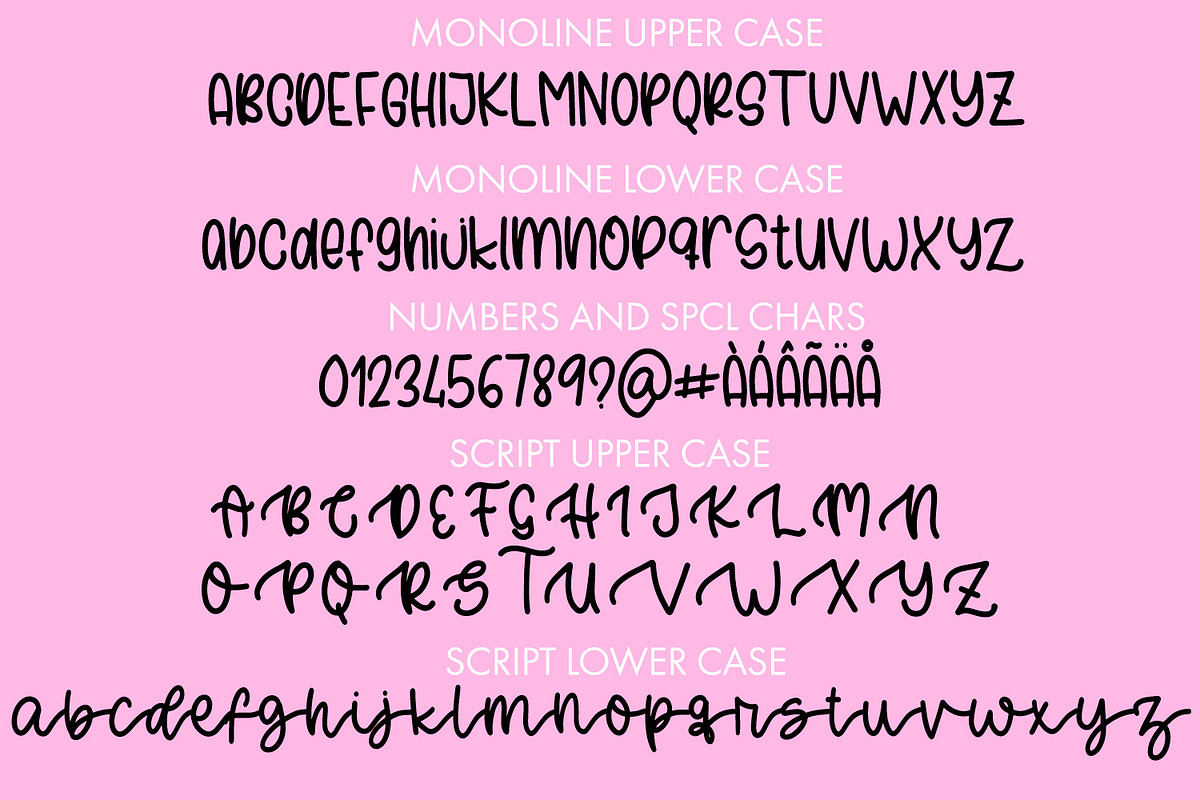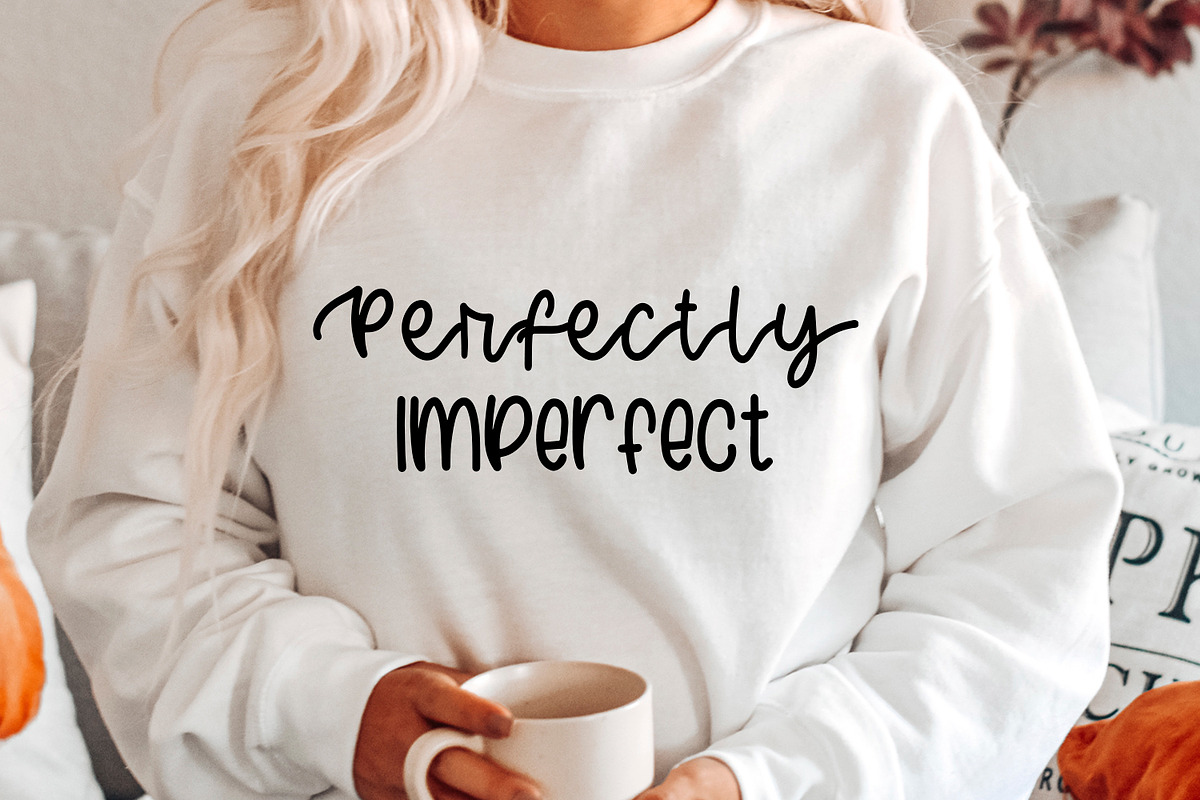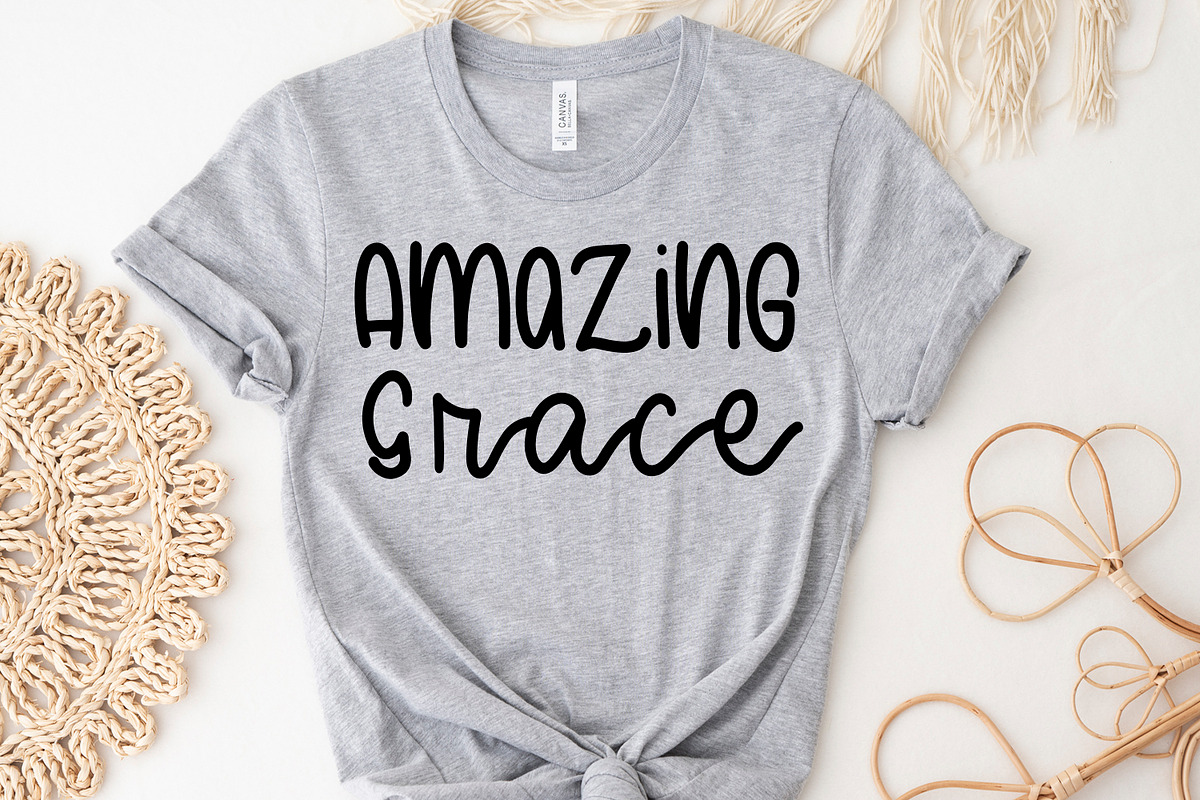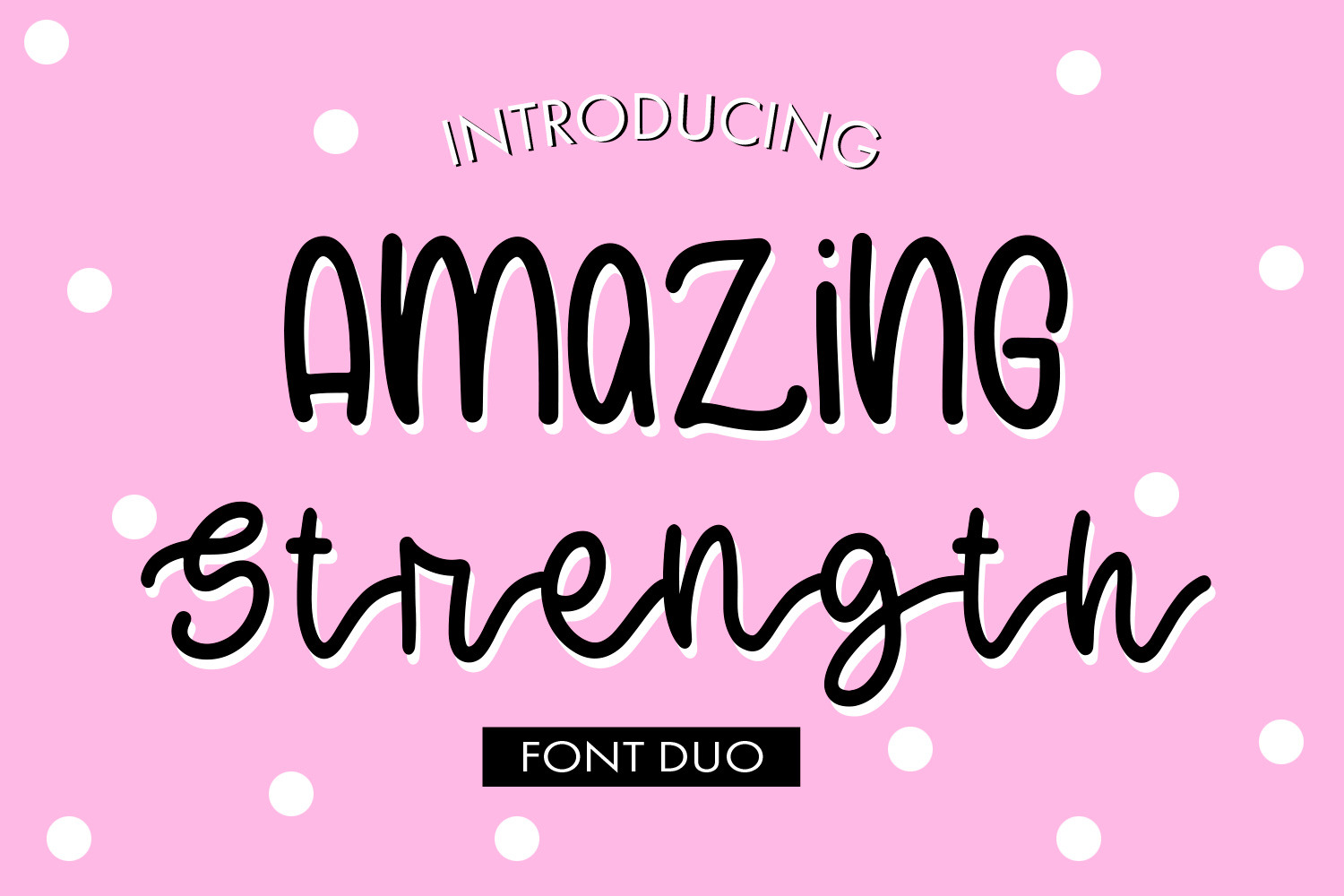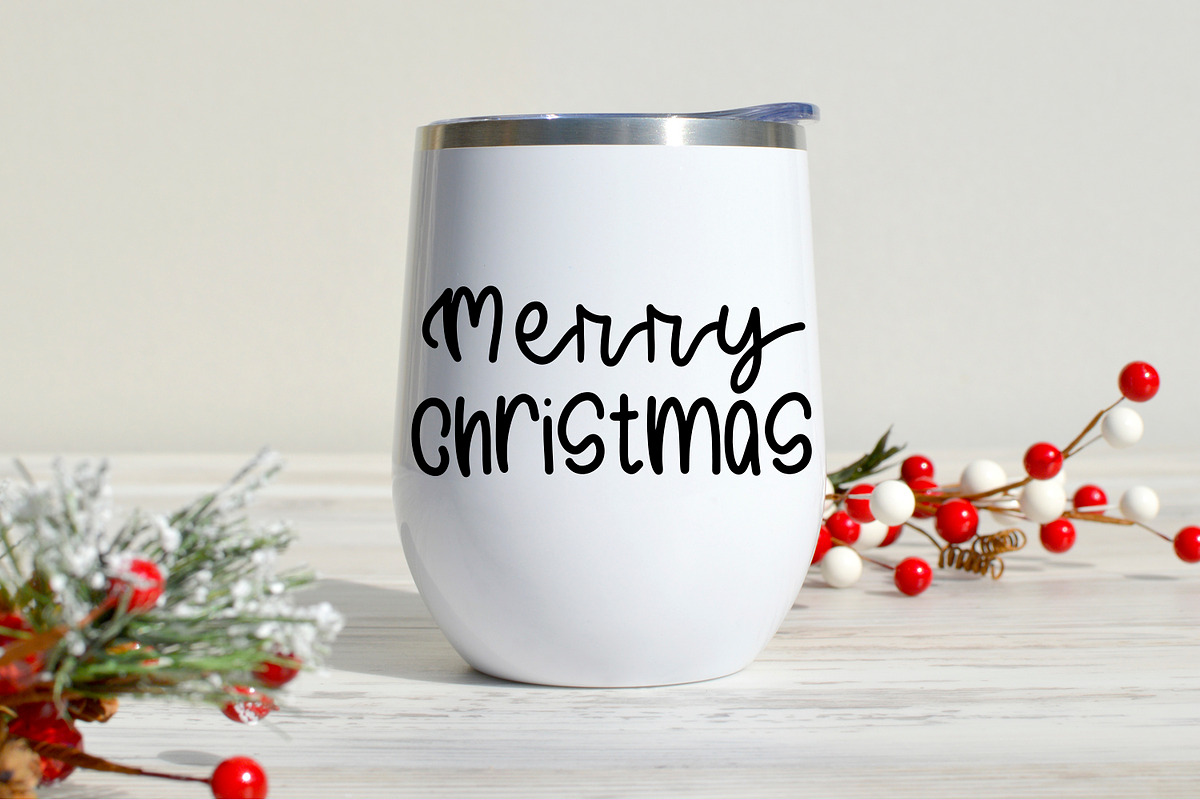
Amazing Strength Font Duo
Discover the perfect font duo, 'Amazing Strength.' This dynamic pairing includes a sleek monoline script font and a charmingly quirky handwritten font. Whether you're designing logos, branding, or invitations, the combination of elegance and character in 'Amazing Strength' will elevate your projects to new heights. Unleash your creativity with this versatile duo today.